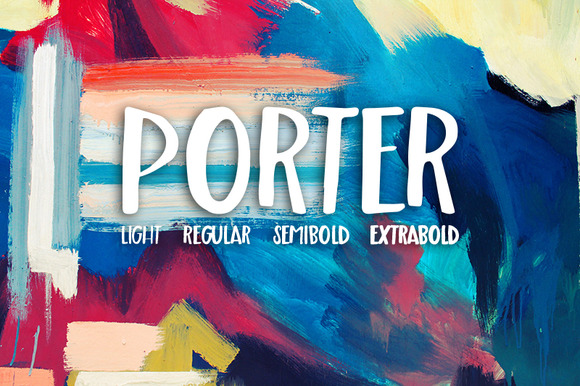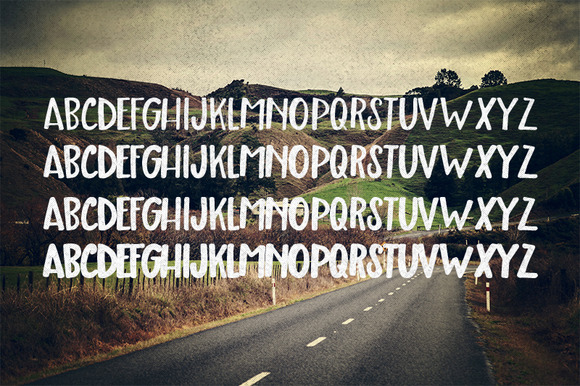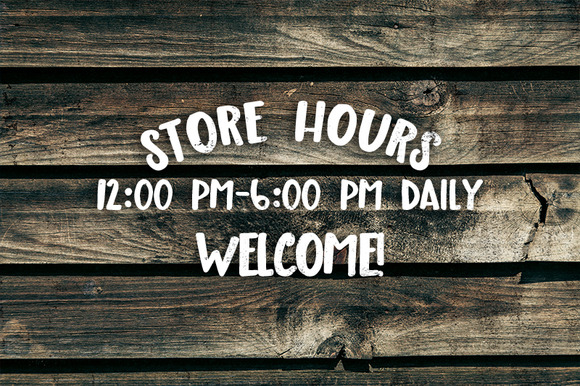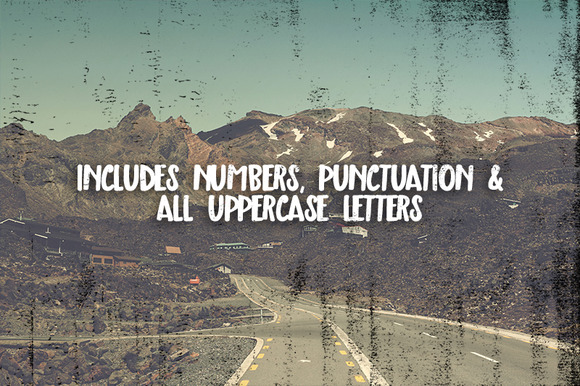
Porter font family
Hand lettered with a felt tip market, Porter makes a great addition to your growing font collection! Comes in FOUR weights : Light, Normal, Semi Bold and Extra Bold